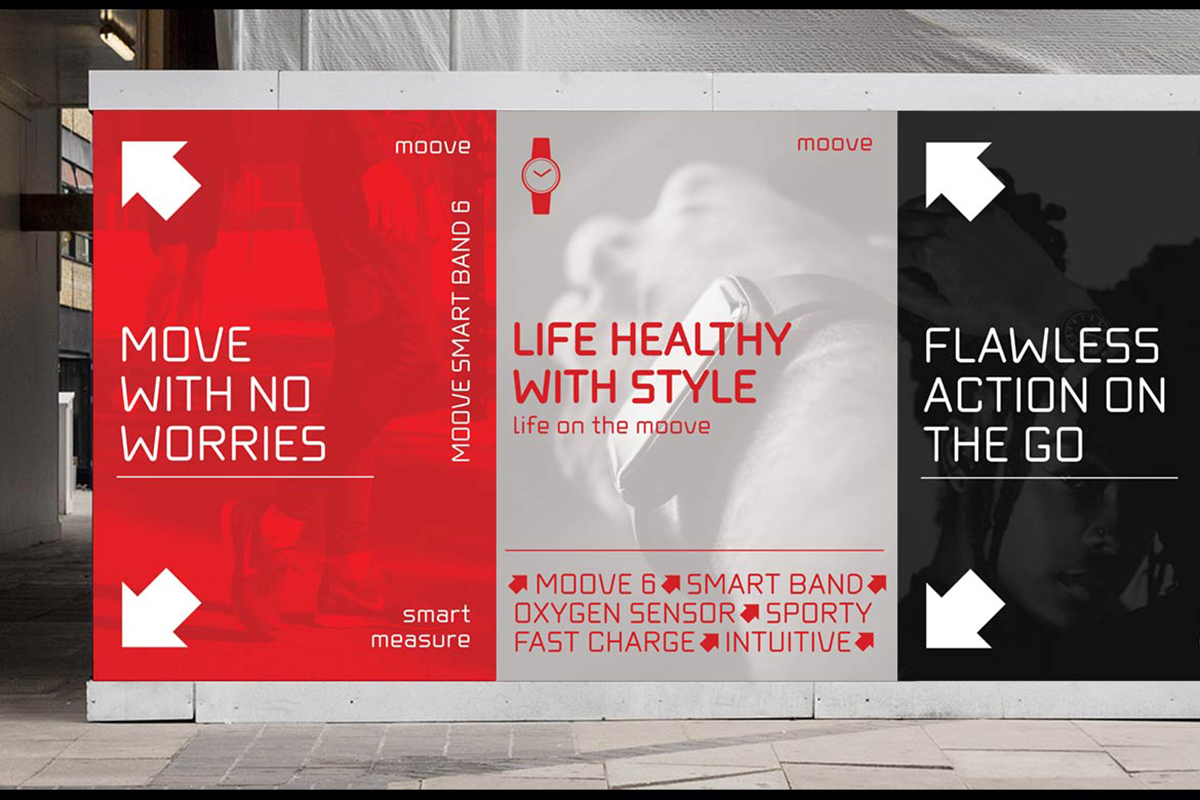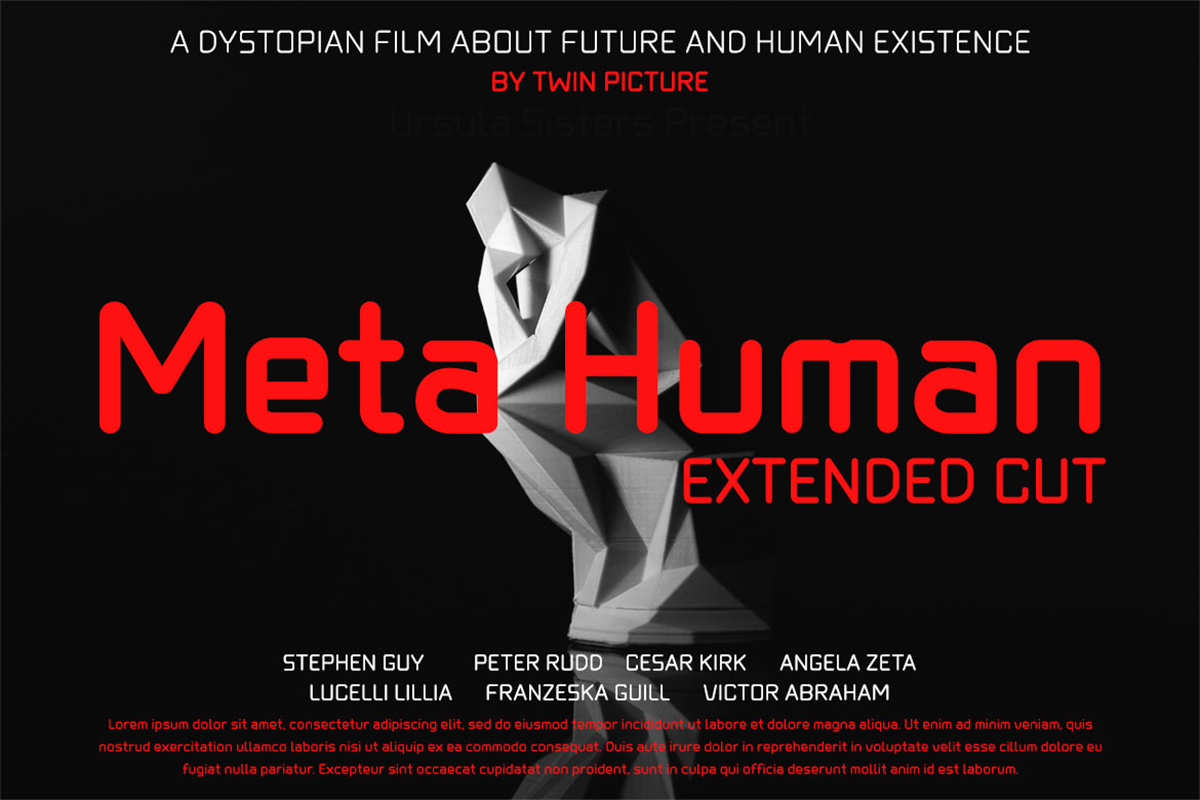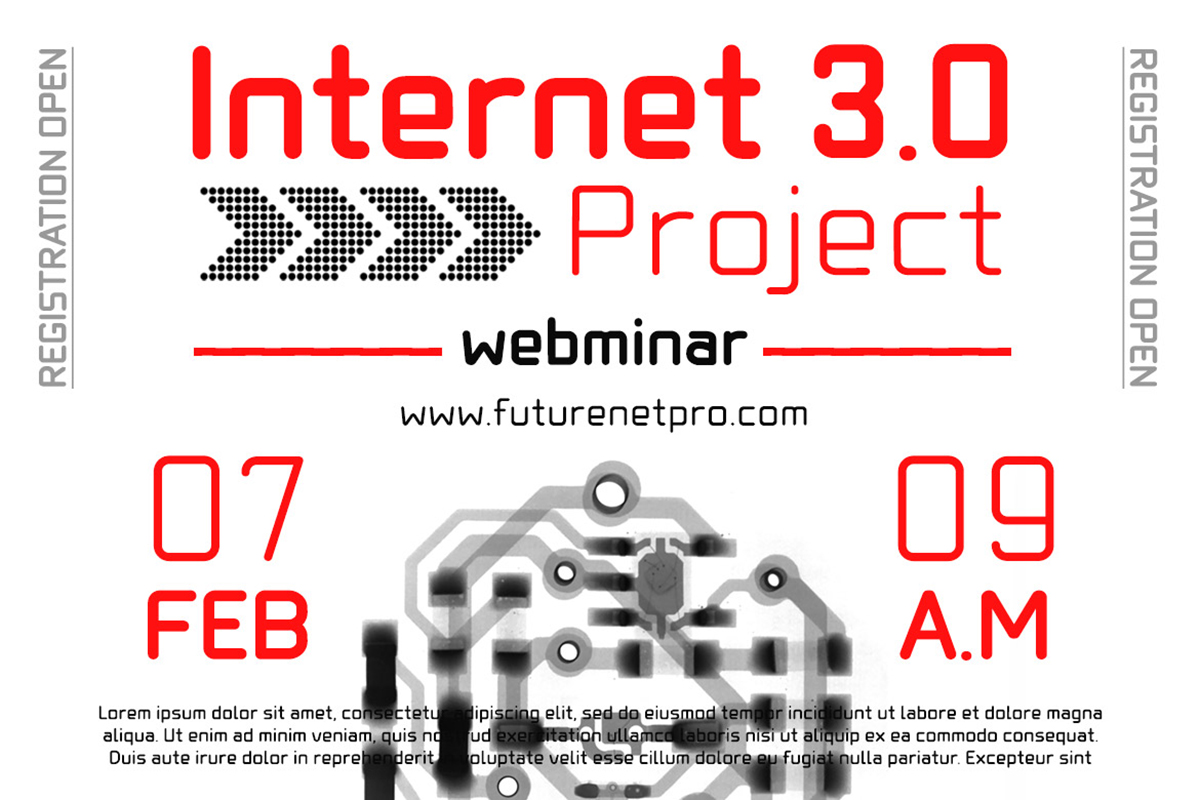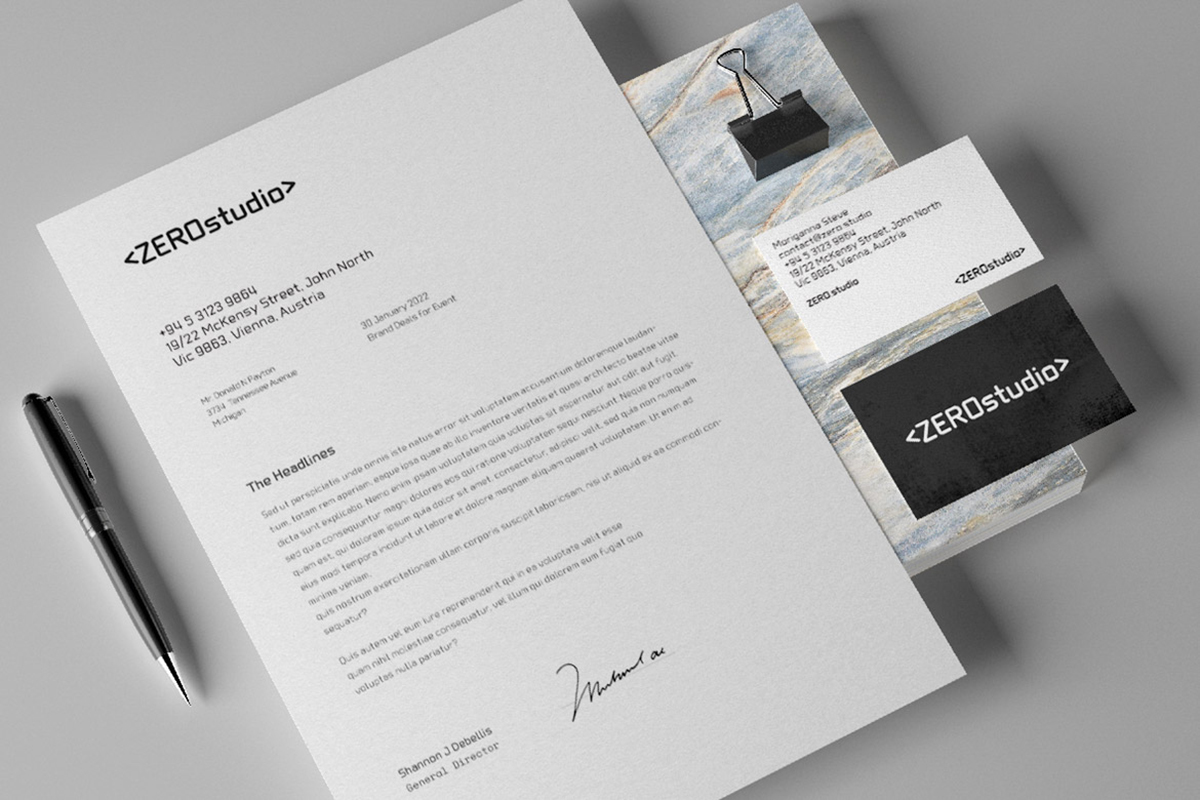
Sogeh Free Font
Introducing Sogeh Free Font – a sleek sans serif font boasting a minimalist and clean design. Its contemporary form and exotic allure make it visually appealing and easy on the eyes. Elevate your special projects with a touch of luxury and coolness that will undoubtedly captivate a wide audience. Whether it’s for logos, branding, or any creative endeavor, this typeface guarantees exceptional outcomes that leave a lasting impression. Embrace the modern sophistication of Sogeh and let your designs shine with style. This free typeface was designed by a talented Twin Letter. If you like it don’t forget to check out the full version.